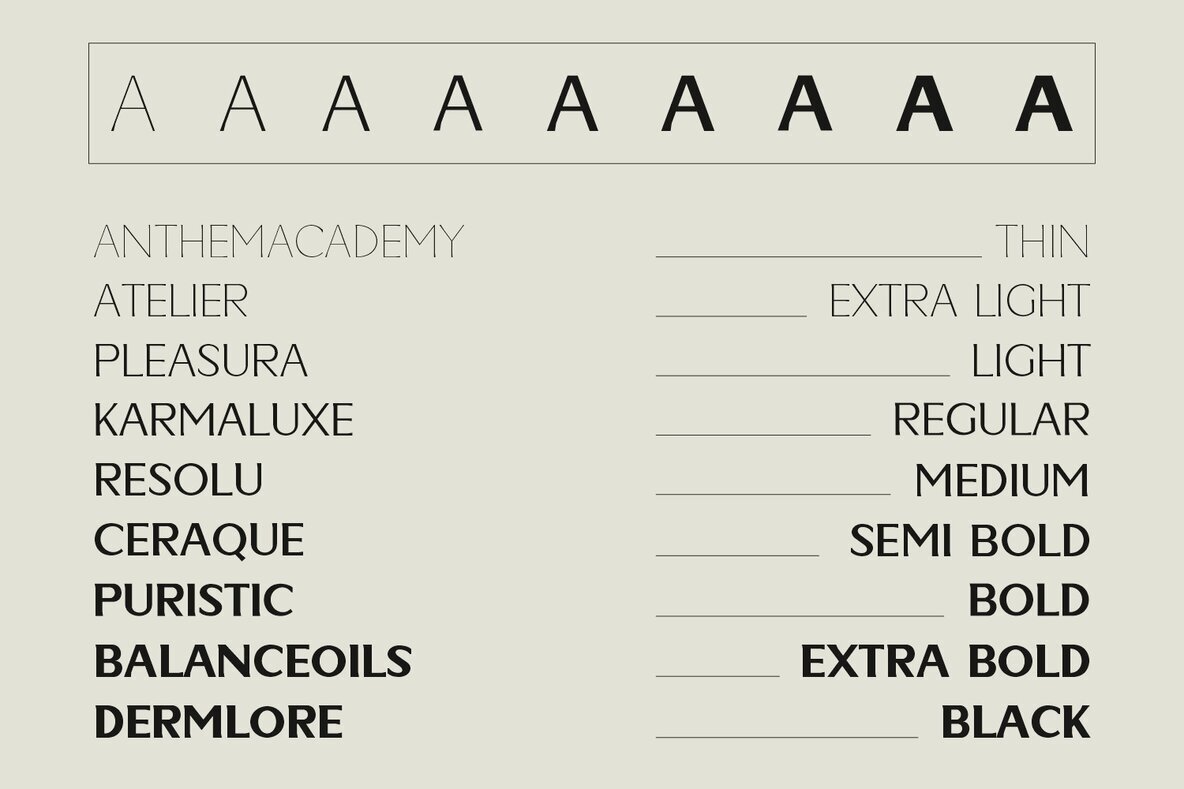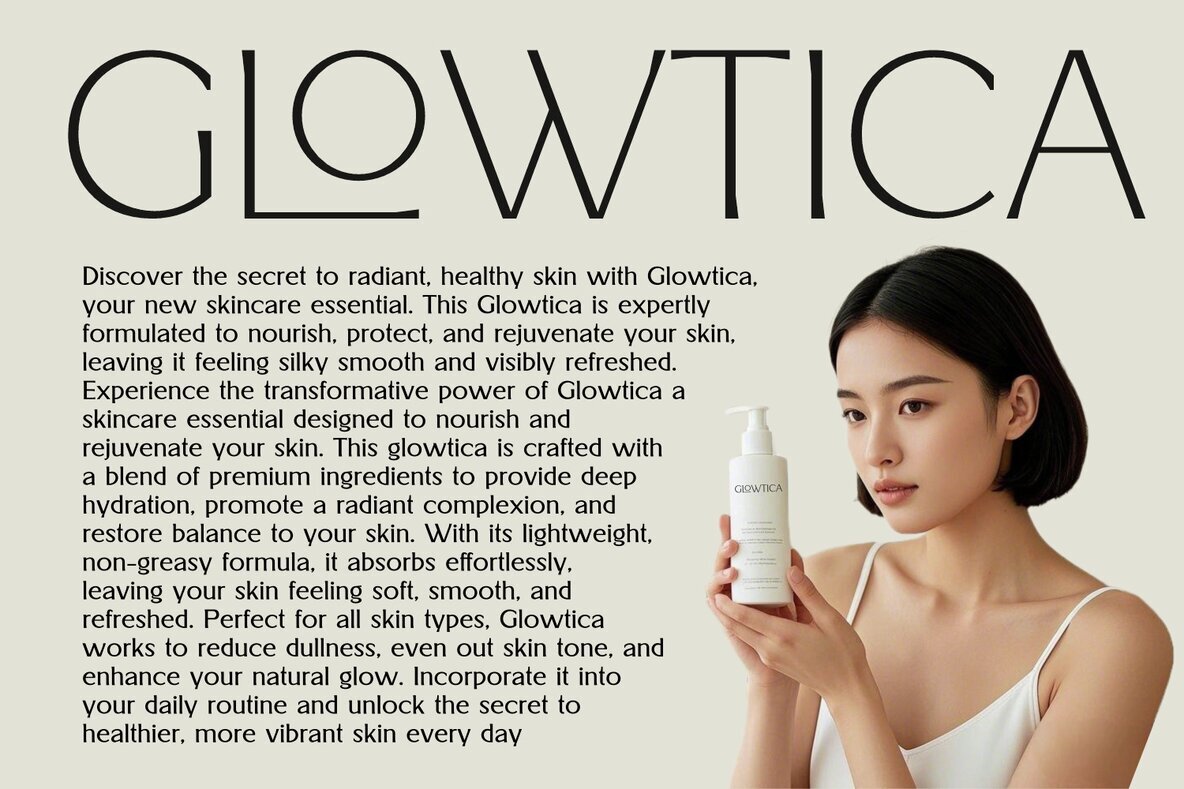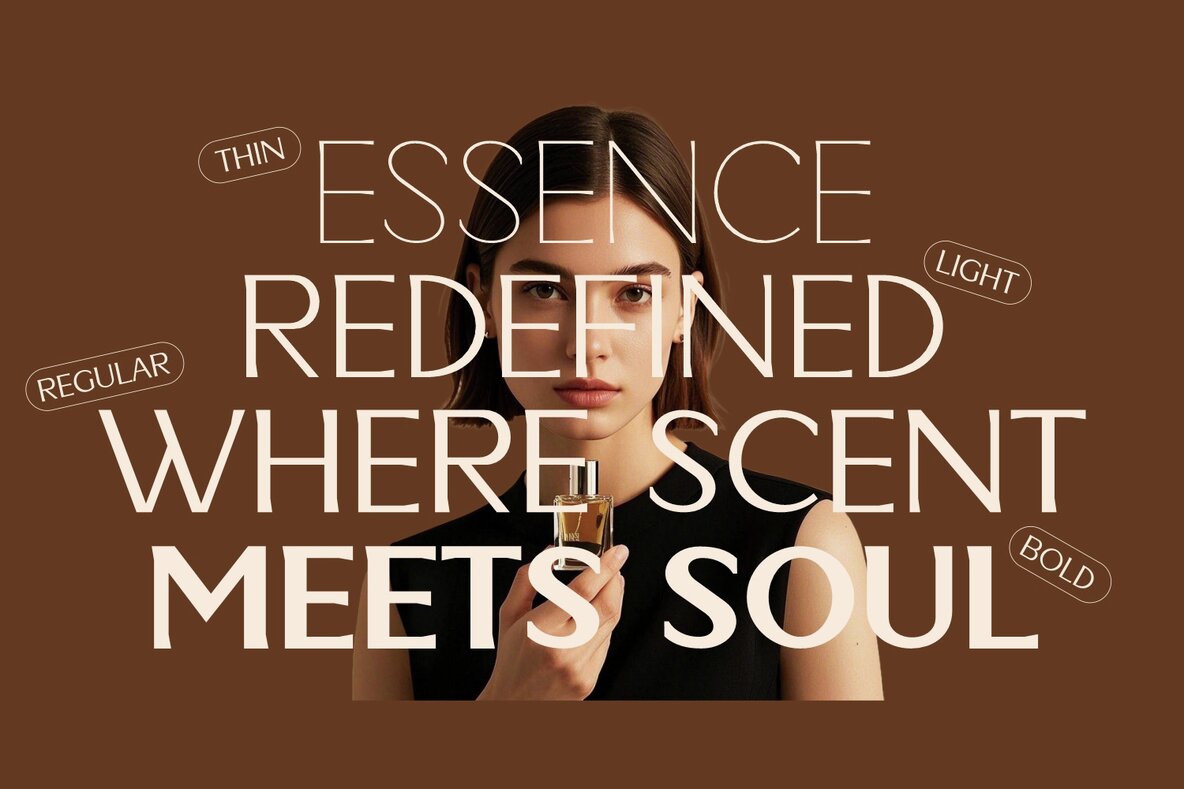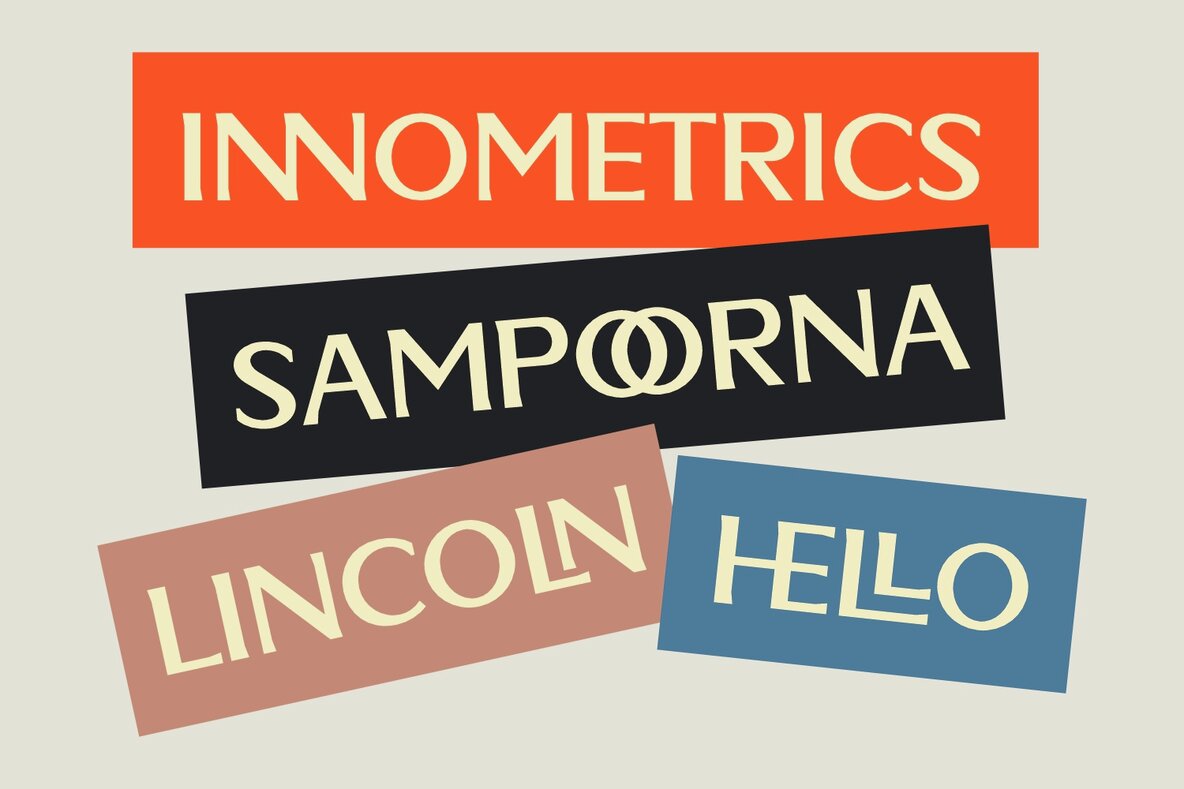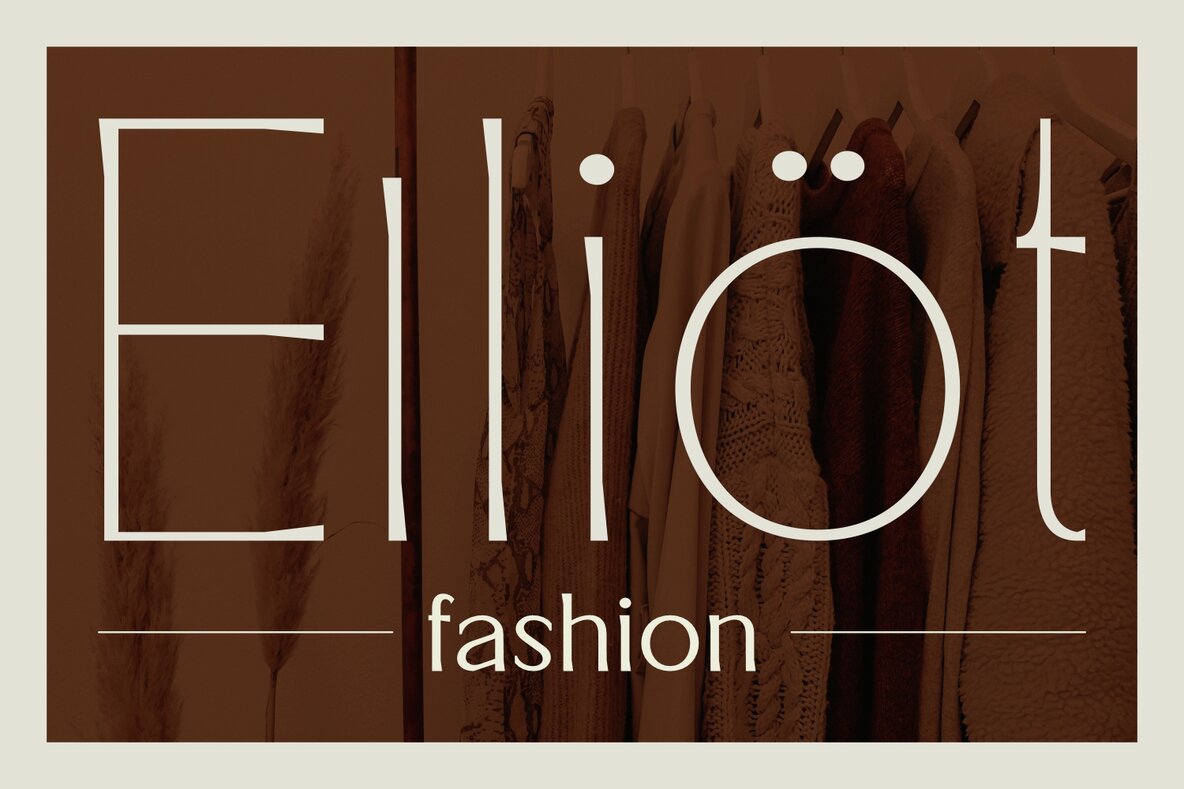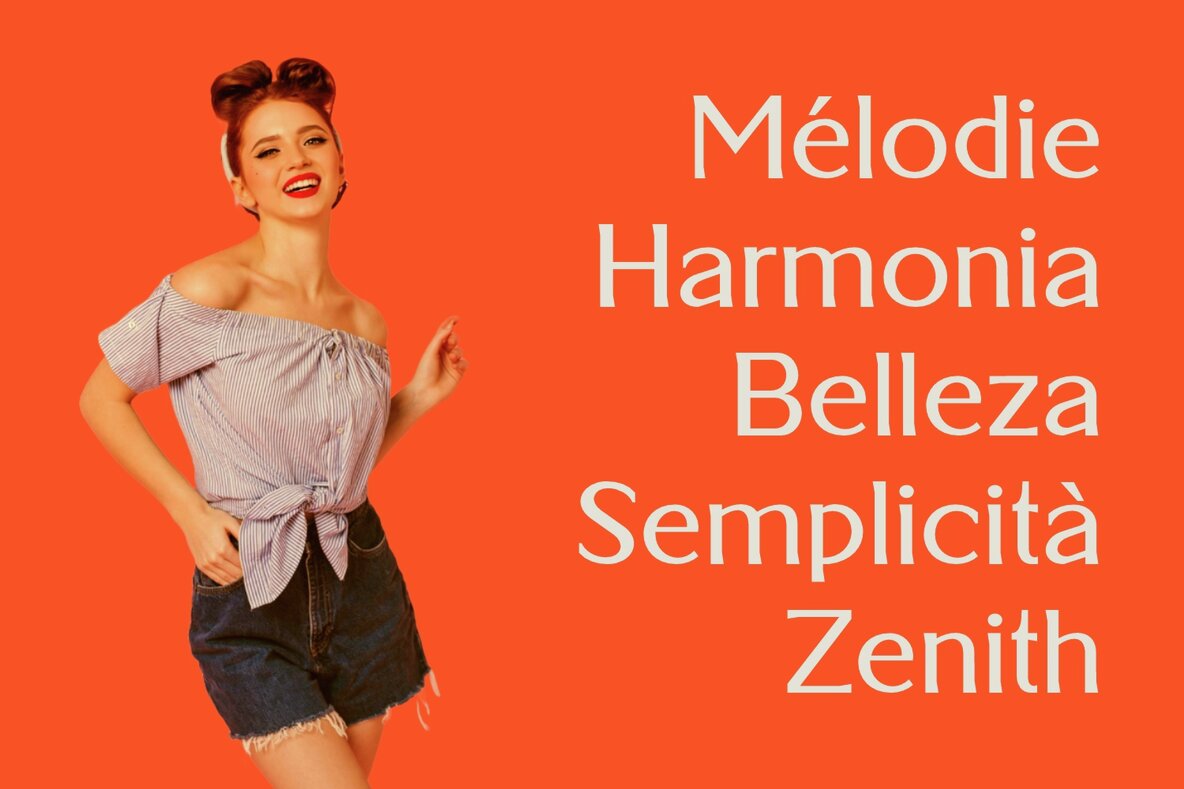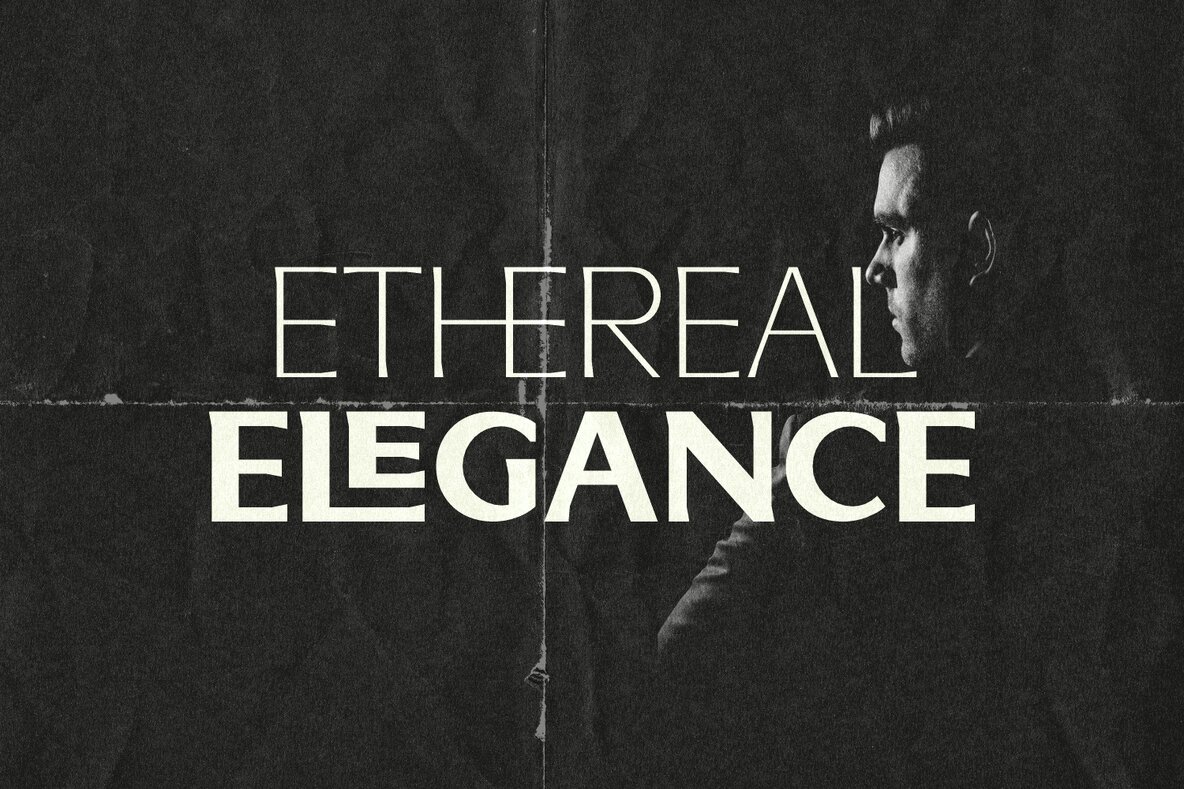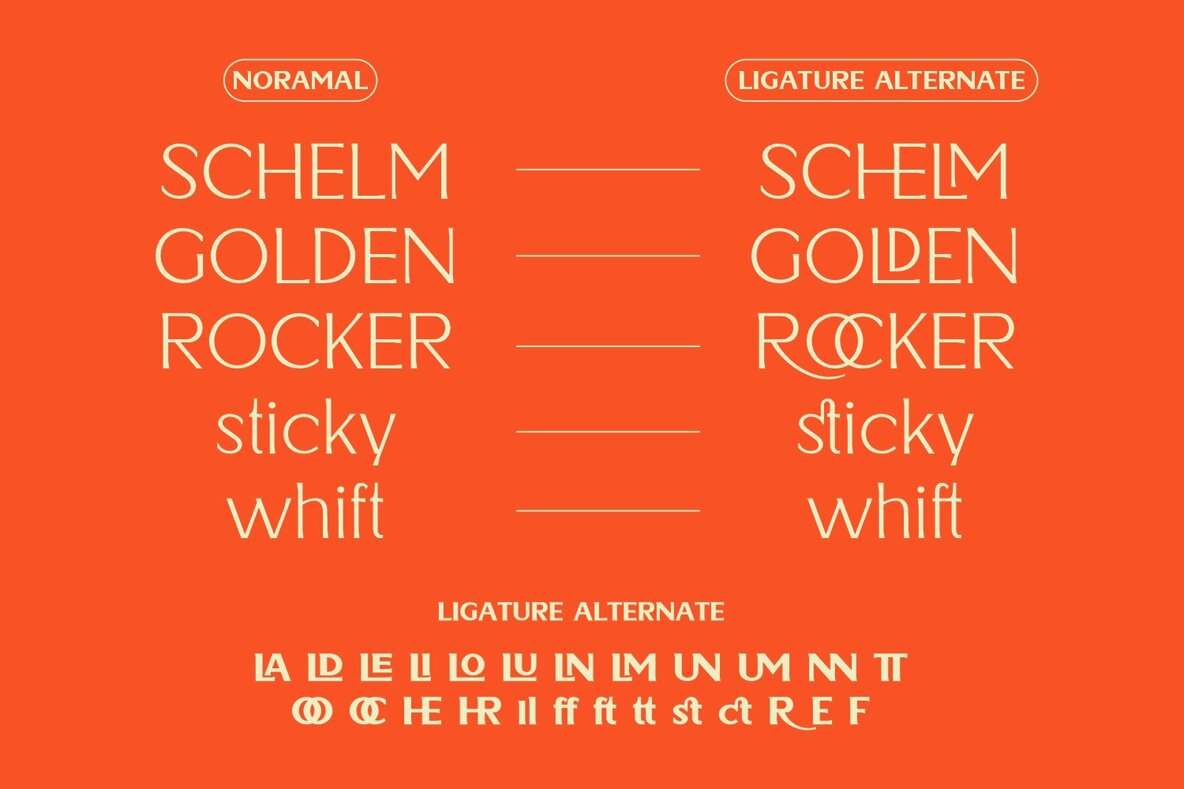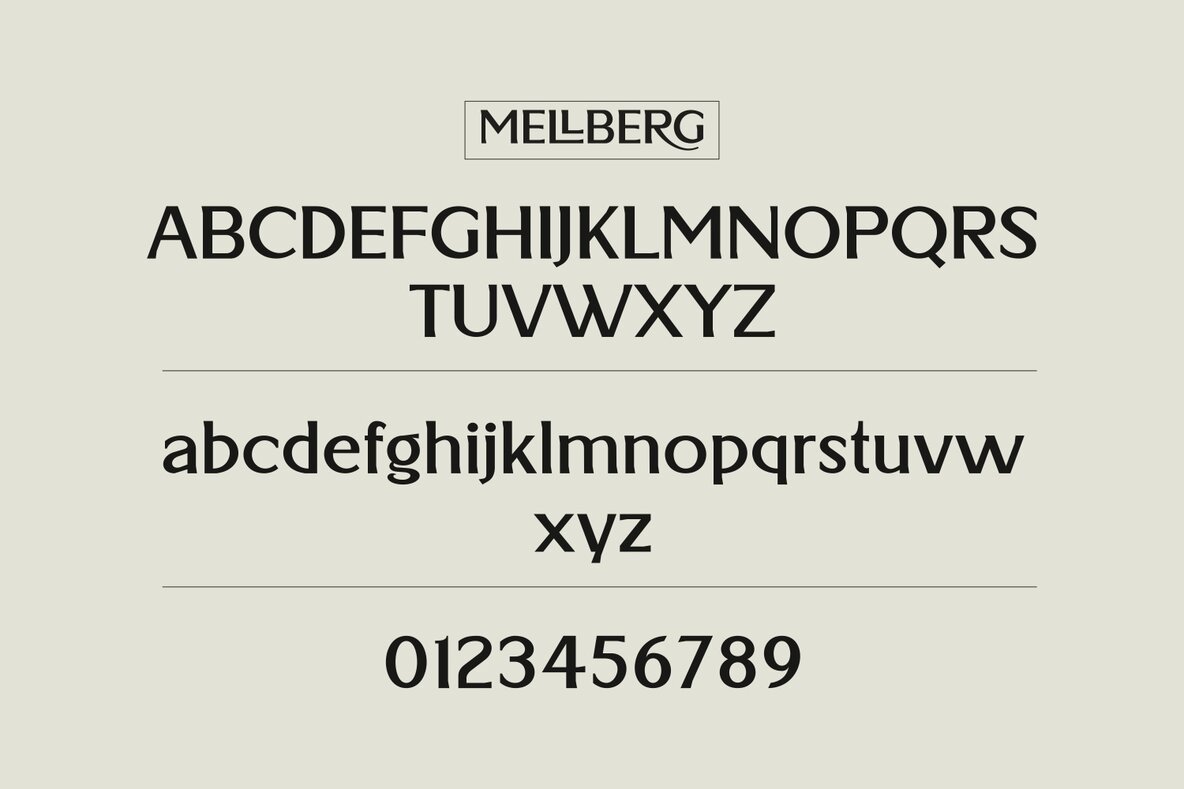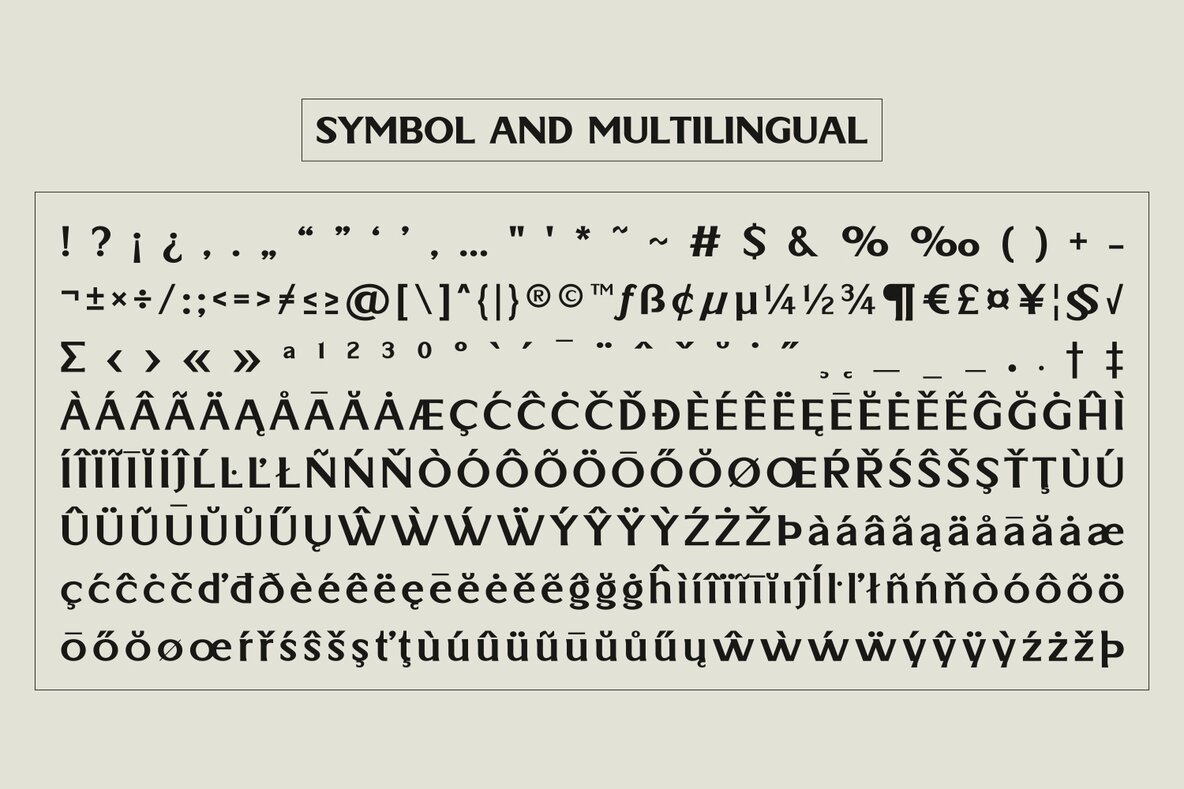
Mellberg Font
This sans-serif font boasts a bold and clean aesthetic, perfect for modern and minimalist design projects. Its angular, blocky shapes and uniform strokes make it ideal for technical displays and branding. Use this typeface to bring clarity and functionality to your visual communications.